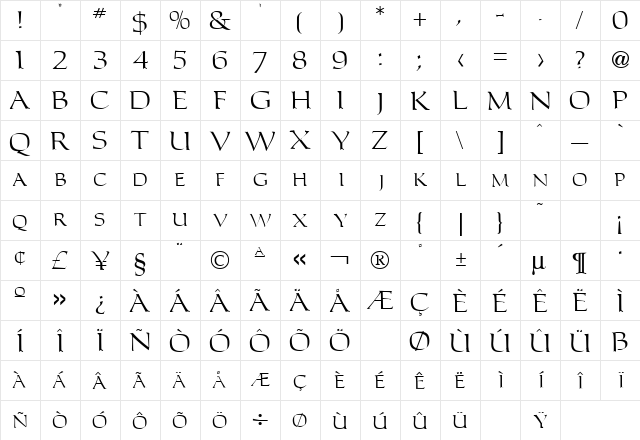
Carolus Roman Regular
Design Context for Carolus Roman Typeface
Carolus Roman takes a measured approach to typography — its balanced proportions and neutral character make it a reliable workhorse for both digital and print work.